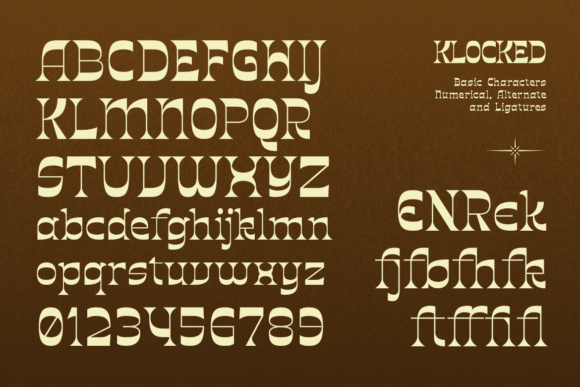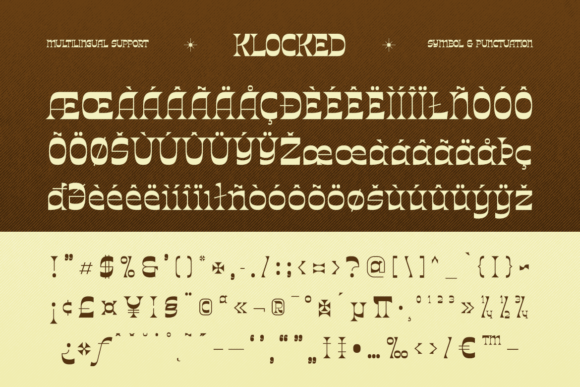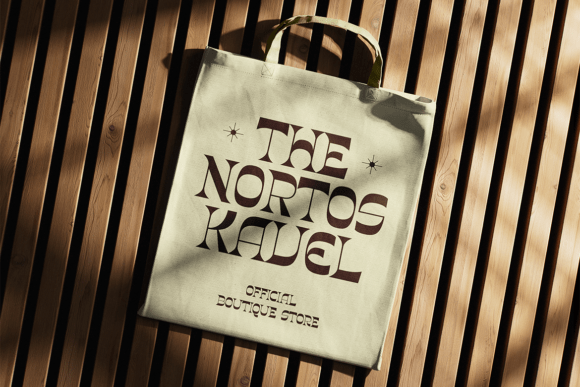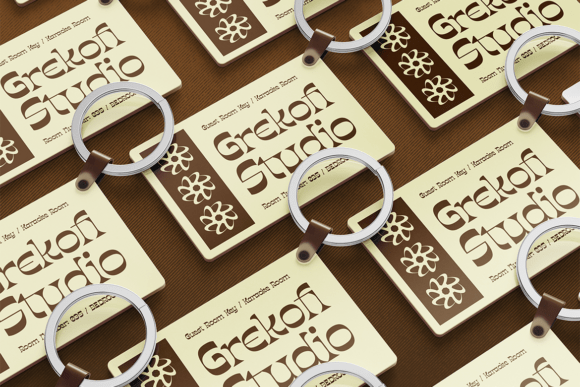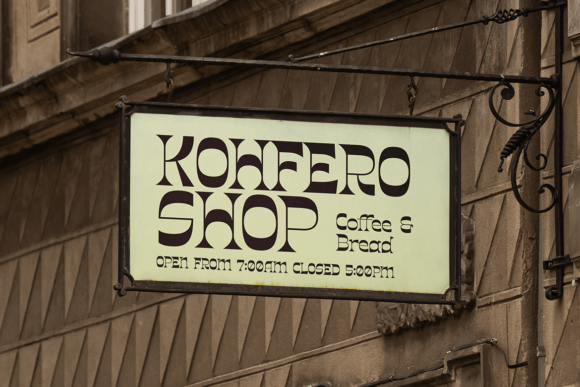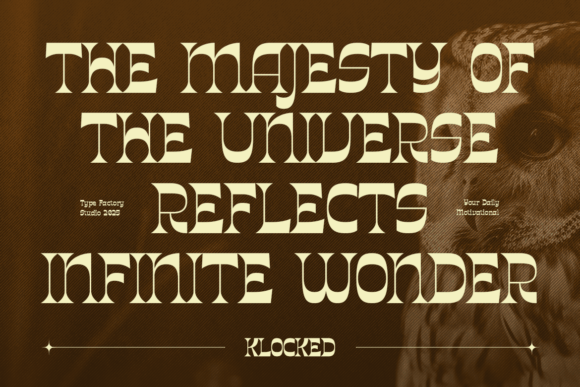
Introduction to Klocked Font
Do you remember that moment when you stumbled upon a vintage poster, and the bold typography just stopped you in your tracks? For many designers, it’s that instant spark that ignites a creative project. The Klocked Font is one such typography gem that can transport your designs to a bygone era, with its striking high-contrast design and stylized serif details.
As a valuable design resource, Klocked Font offers a unique aesthetic that’s perfect for eye-catching titles, expressive typography, and creative layouts. Its bold letterforms and reversed stroke weight create a distinctive typographic rhythm that’s ideal for posters, branding, packaging, signage, and logo design. Whether you’re working on a high-quality design project or need a versatile font for a transparent background, Klocked Font is a free download that’s sure to elevate your design game.
Key Features of Klocked Font
- High-quality, bold and modern design suitable for a creative project
- Unique characteristics: bold, modern, and highly legible, making it perfect for headings and titles
- Designed to be versatile and suitable for a wide range of creative projects, from digital art to print materials
- Includes a full character set, including uppercase and lowercase letters, numbers, and punctuation marks
Honest Review: Klocked Font
- High-quality design that’s perfect for a variety of projects ✨
- Transparent background, making it easy to use in both digital and print designs ✨
- Stylish and modern aesthetic that’s sure to impress ✨
- Some users may find the font a bit too bold or overpowering ⚠️
- Not ideal for projects that require a more subtle or understated design ⚠️
Overall, I’m impressed with the Klocked Font and would definitely recommend it to other designers. While it may not be perfect for every project, it’s a great addition to any design arsenal.
To get the most out of the Klocked Font, experiment with different font sizes and styles. Use the font in combination with other design elements, such as images and shapes, to create a visually appealing design. Consider using the font in a creative project, such as a logo or branding material, where a high quality font is essential.
The Klocked Font is commonly used in design projects that require a high quality, creative font. It is particularly useful for logos, branding materials, and graphics that require a unique and eye-catching font. The font’s transparent background makes it easy to use in combination with other design elements.
Alternatives to Klocked Font
Lobster Font is a popular high-quality script font perfect for creative projects that require a touch of elegance. It features a transparent background and is ideal for use in invitations, posters, and other design elements where a beautiful handwriting style is desired. When to use: Formal events, weddings, and other special occasions. Comparison: Lobster Font has a more refined and sophisticated look compared to Klocked Font, which is more playful and casual.
Pacifico Font is a modern and stylish script font that is perfect for design projects that require a high level of sophistication. It features a clean and minimalist design that is ideal for use in logos, branding, and other design elements where a professional look is desired. When to use: Business logos, branding, and other professional design projects. Comparison: Pacifico Font has a more elegant and refined look compared to Klocked Font, which is more casual and playful.